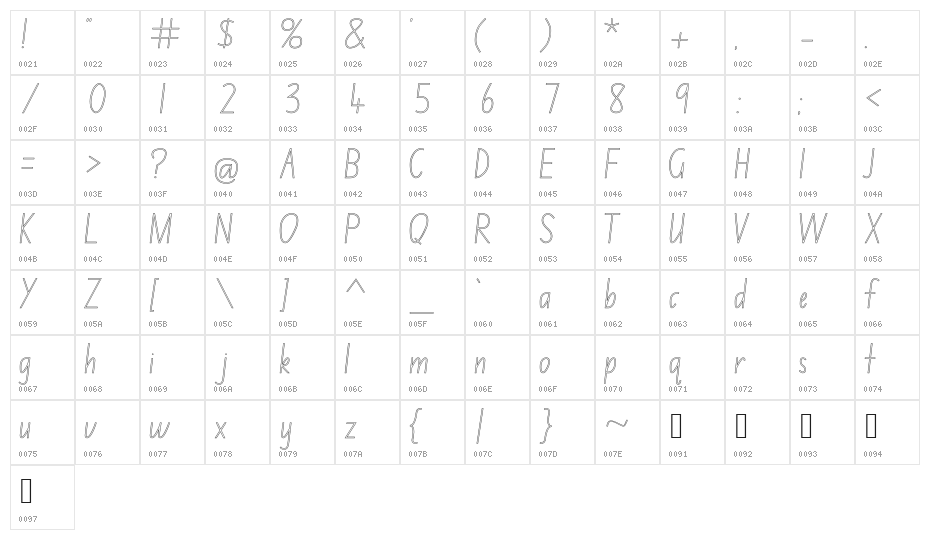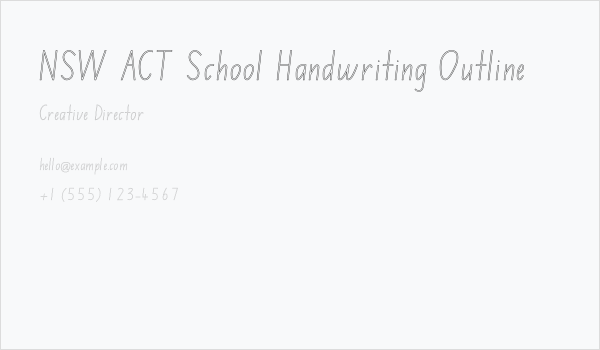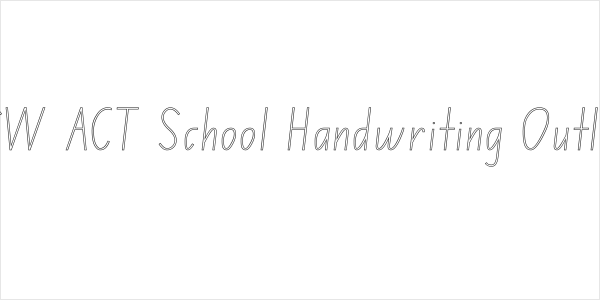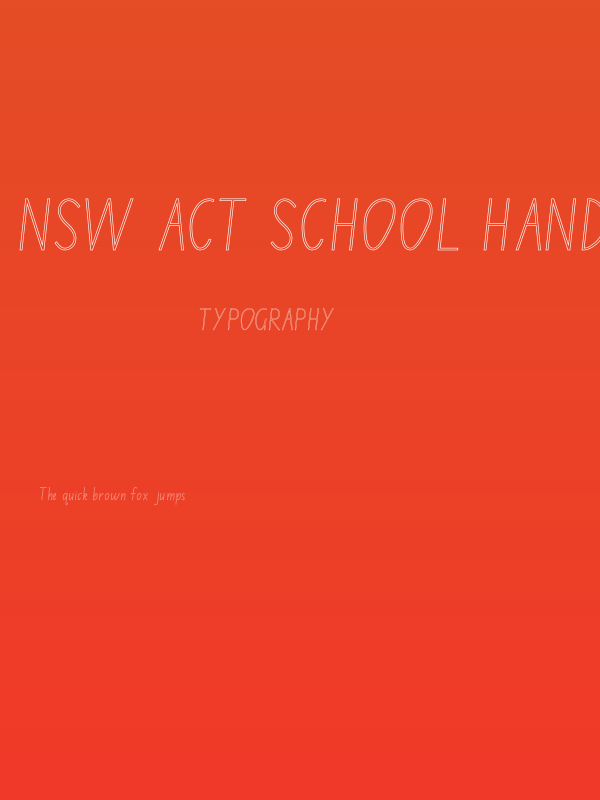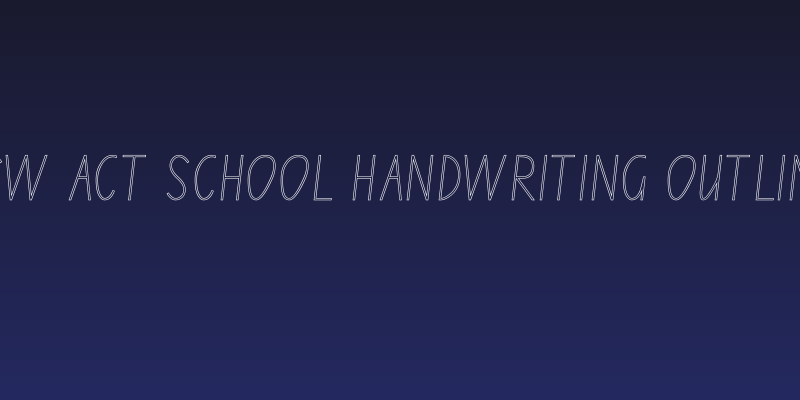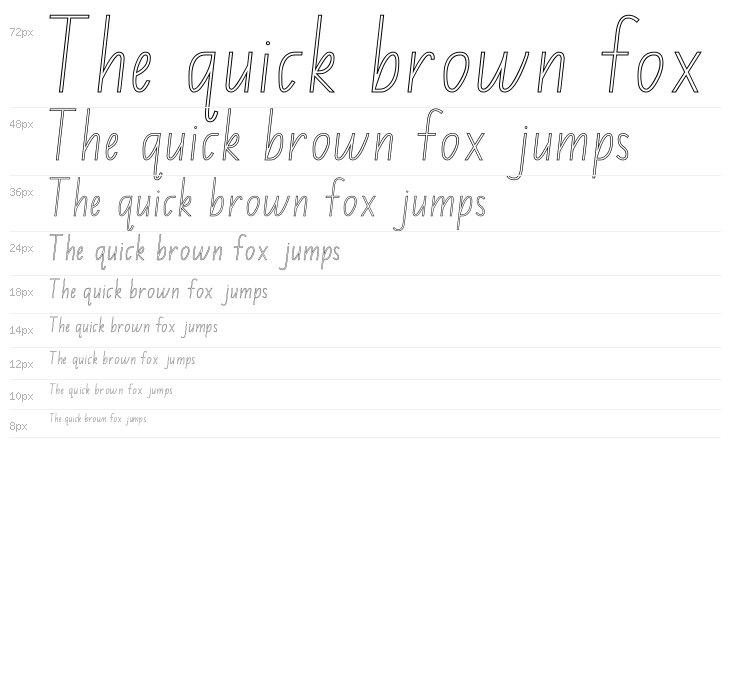
NSW ACT School Handwriting Outline Font
NSW ACT School Handwriting Outline Description
This font features a clean, outlined style that mimics traditional school handwriting. The characters are upright with a slight slant, giving them a casual yet structured appearance. The uppercase and lowercase letters maintain a consistent height, creating a harmonious look. The numerals and special characters are designed to match the overall aesthetic, ensuring uniformity across all elements. The strokes are even and consistent, with a medium contrast that enhances readability without overwhelming the viewer. This font is ideal for educational materials, children's books, or any project that requires a friendly and approachable typeface.
| Use Case | Educational materials, Children's books |
| Proposed Projects | Ideal for educational materials, children's books, and projects needing a friendly typeface. |